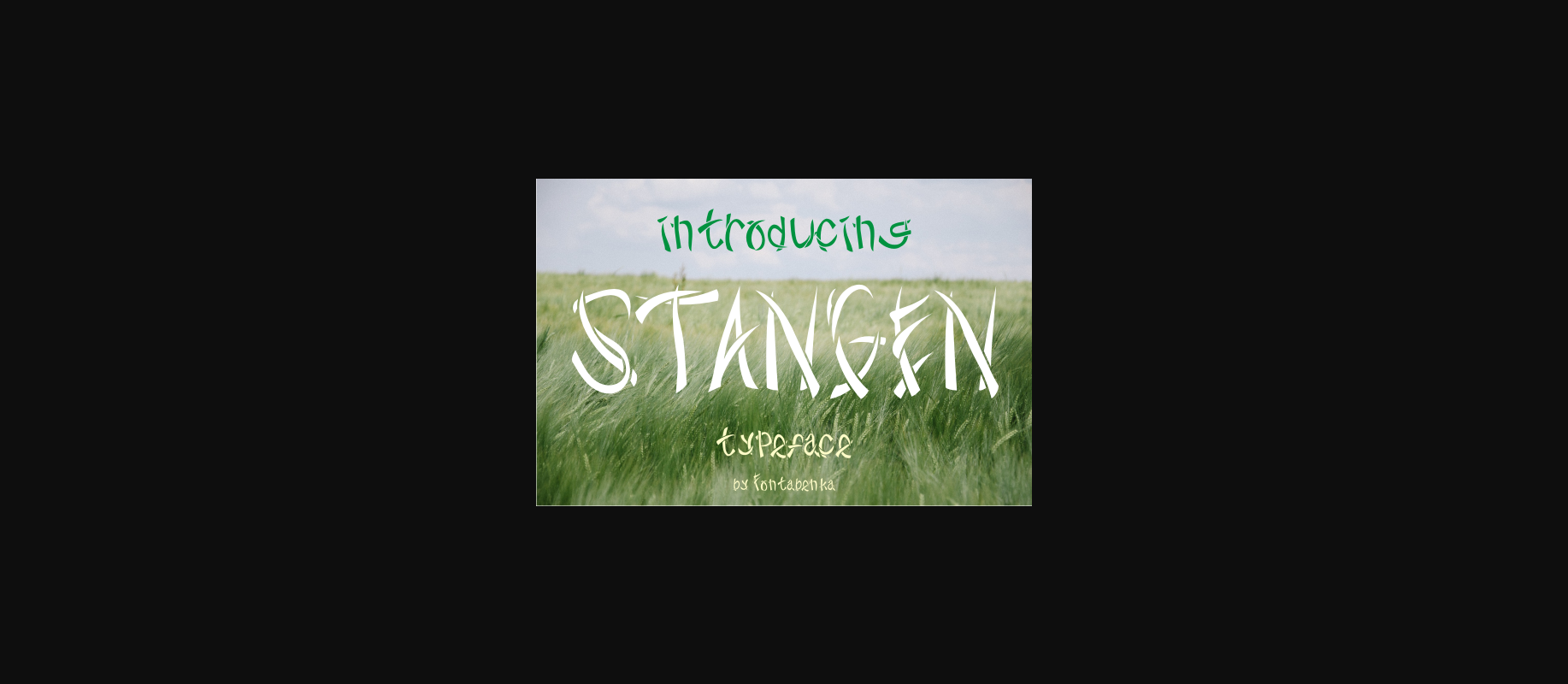
About Stangen Font
The Stangen is a striking font. It has unique letters which can be used to make any design stand out. Itβs perfect for logos, book covers, invitations, cards, and much more!